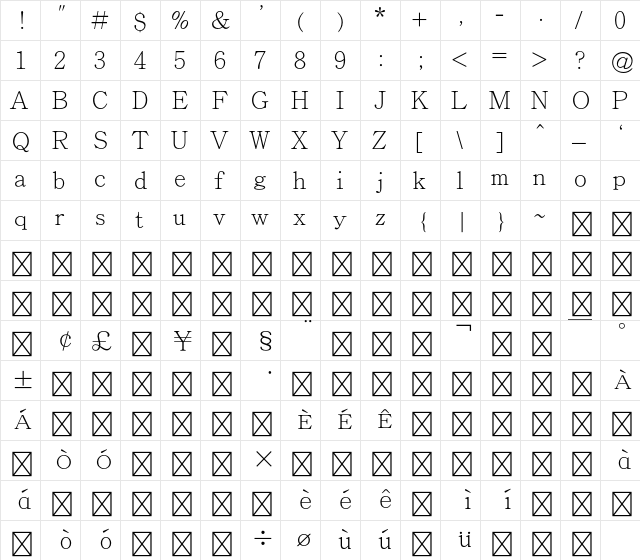
Adobe Ming Std L
Design Context for Adobe Ming Std Typeface
Adobe Ming Std takes a measured approach to typography — its balanced proportions and neutral character make it a reliable workhorse for both digital and print work.